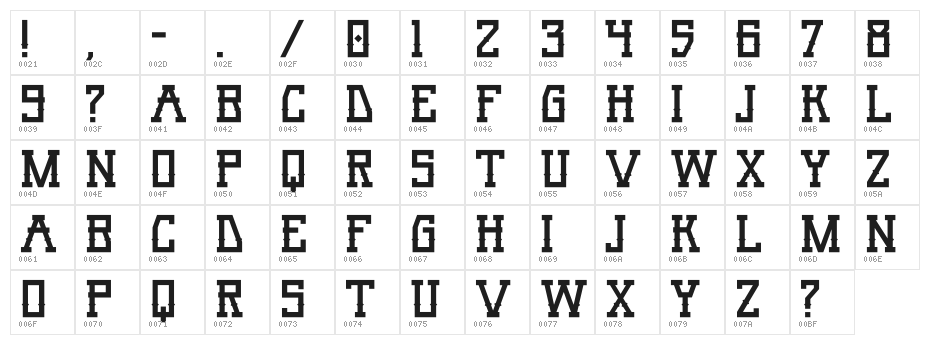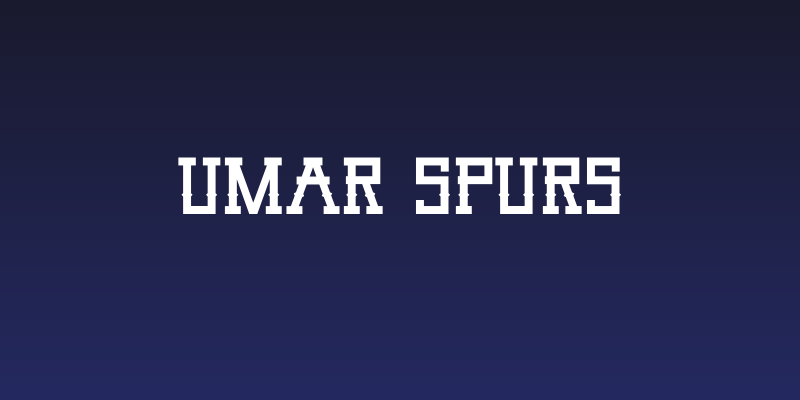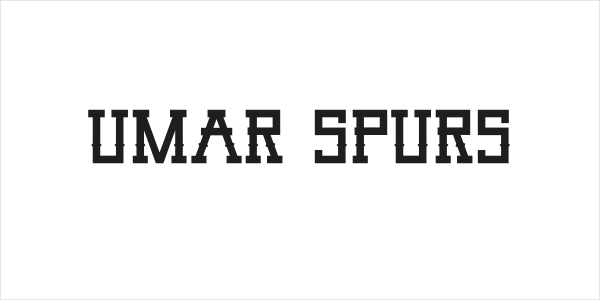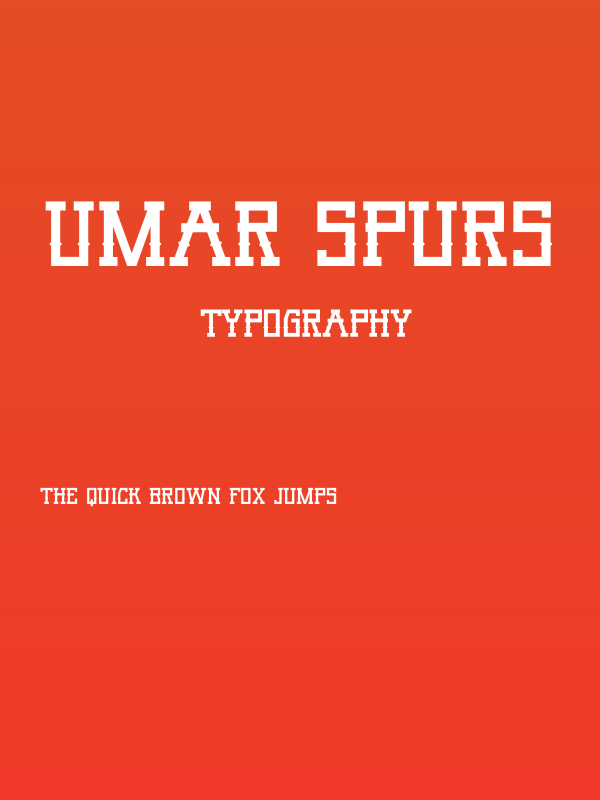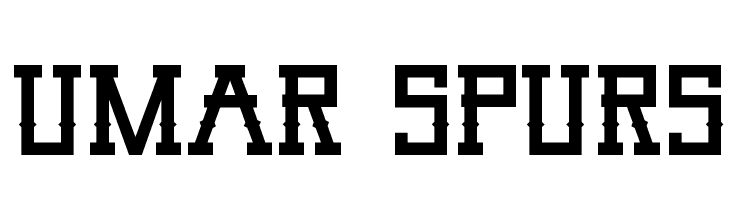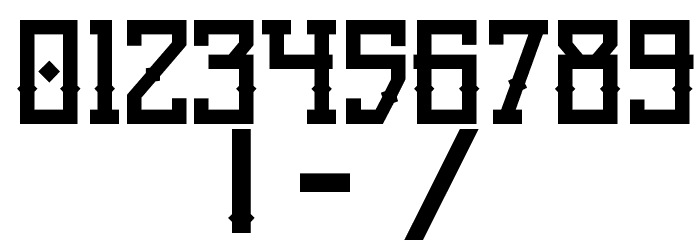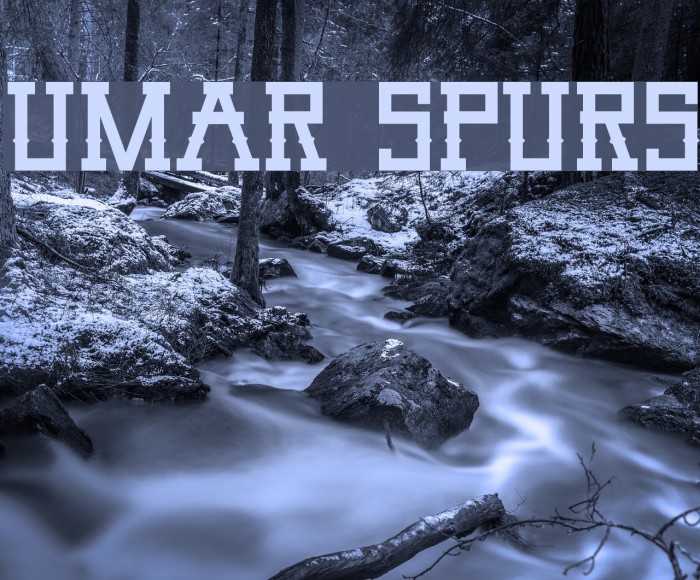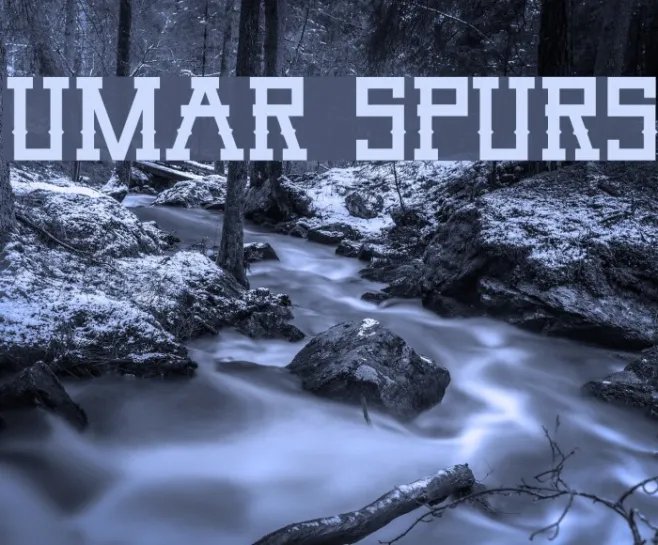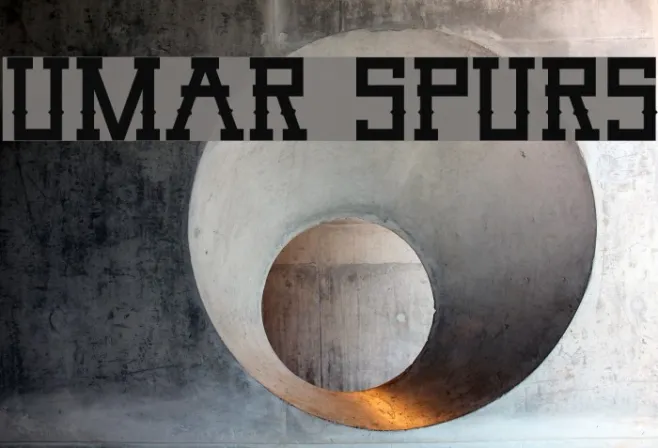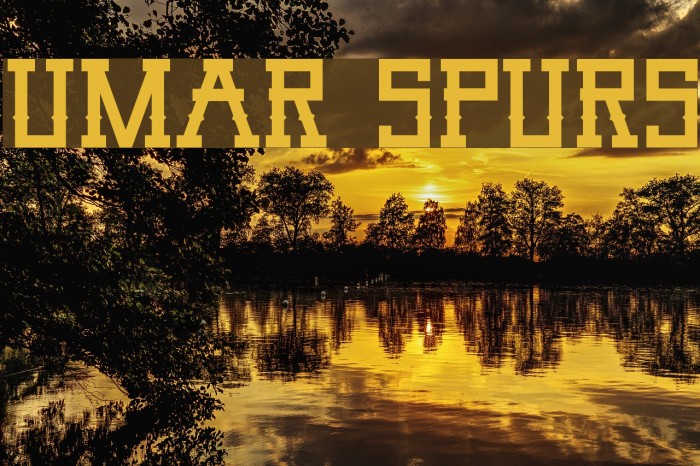
Umar Spurs Font
Umar Spurs Description
This font features a bold and striking design with a distinctly geometric and angular style. The characters are constructed with sharp edges and a blocky appearance, reminiscent of western or cowboy themes. The uppercase and lowercase letters maintain a consistent height, creating a uniform look. The numbers and special characters follow the same stylistic approach, ensuring cohesion across all elements. This font's unique design makes it stand out, ideal for projects that require a strong visual impact.
| Proposed Projects | Ideal for posters, logos, branding, and any design needing a bold, western aesthetic. |